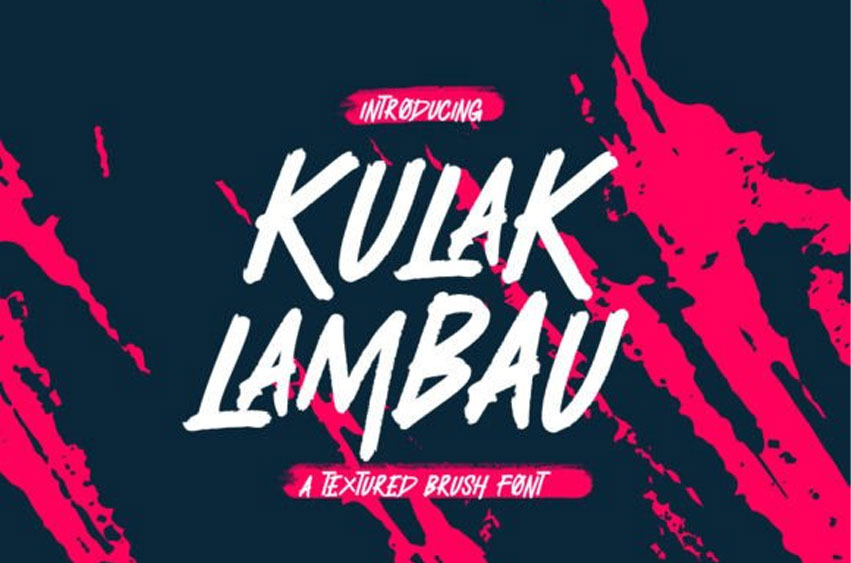
Kulak Lambau Font
Kulak Lambau Font is a vibrant and playful textured brush font that adds a touch of handcrafted charm to your designs. With its bold strokes and unique texture, this font brings a dynamic energy to any project, from posters to social media graphics.
Perfect for those who want to infuse their creations with a bit of personality and a hint of artistic flair.